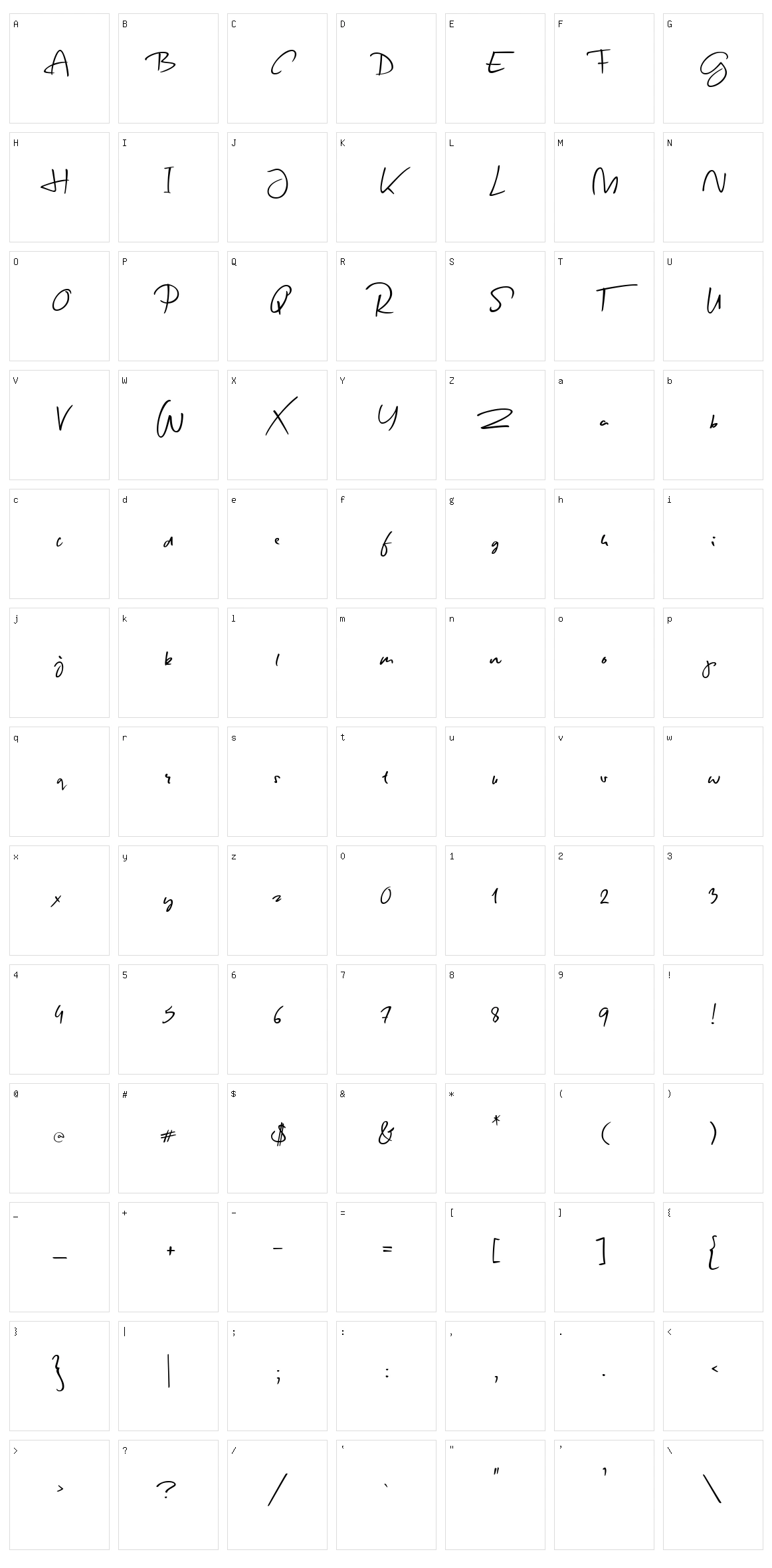
Spring Script
Designed by: Roland Huse Design
ÿþSPRING SCRIPT is a casual handwritten font.
It has a little messy look and some words may not work well but some looks perfect for logotype. Same applies especially to all caps. Give it a try ;)